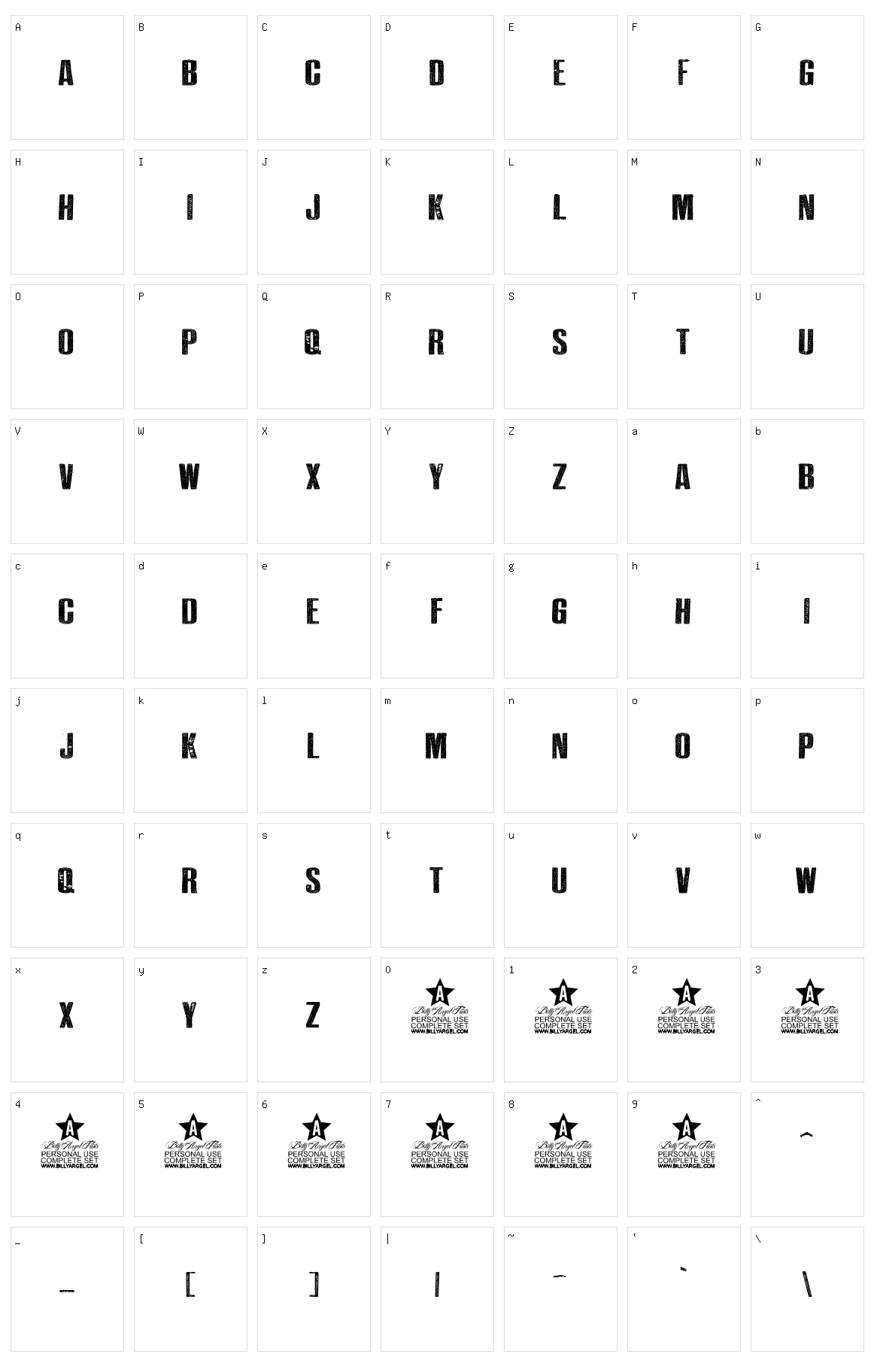
The free font No Stress is carefully designed by Billy Argel Fonts ®, showcasing a thoughtful balance of creativity and usability and falls under the Eroded font style. When you download the ZIP file, it contains only 422.06 KB of font files, making it lightweight and quick to download. Please review the license details below to understand permitted usage and distribution rights. If license information is not available, we recommend using this font for personal projects only or contacting the author directly for commercial usage permissions.